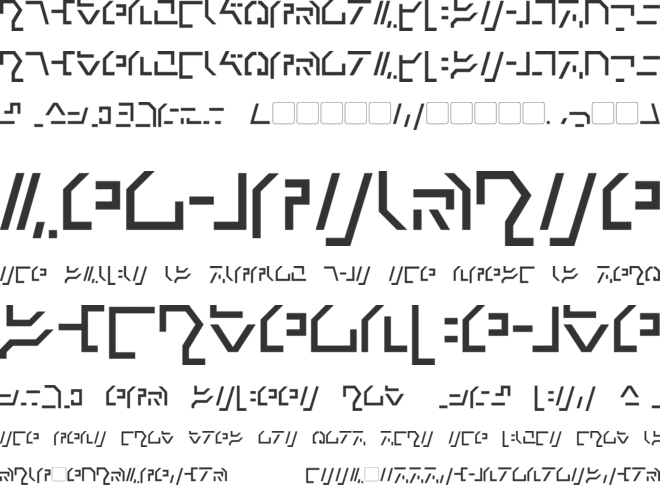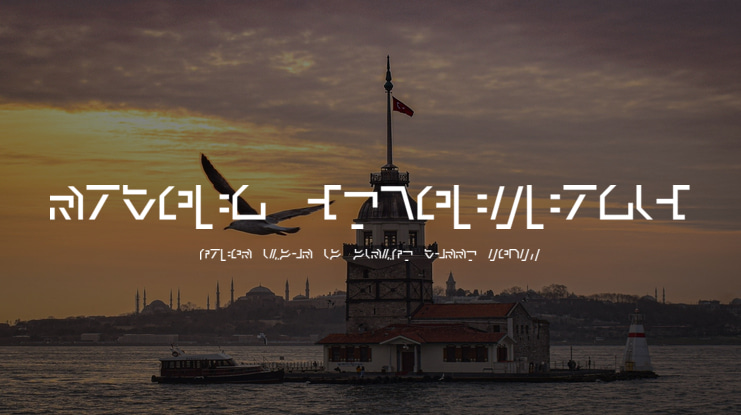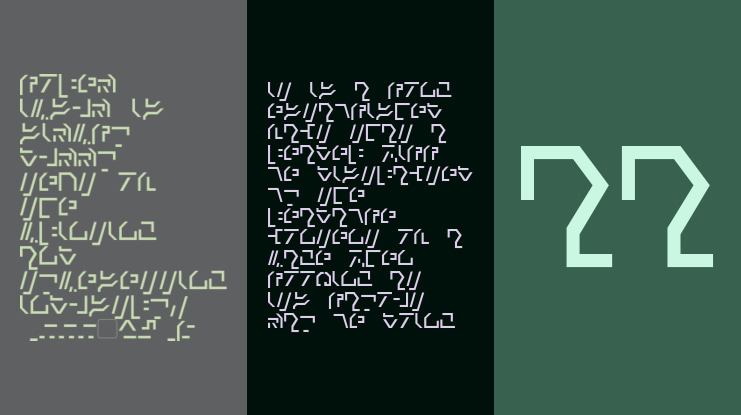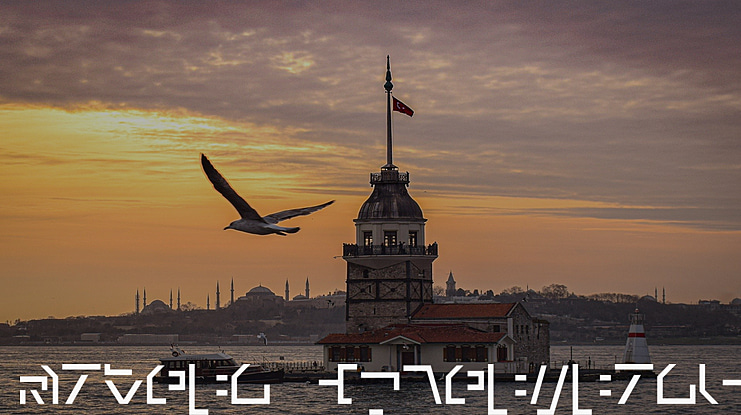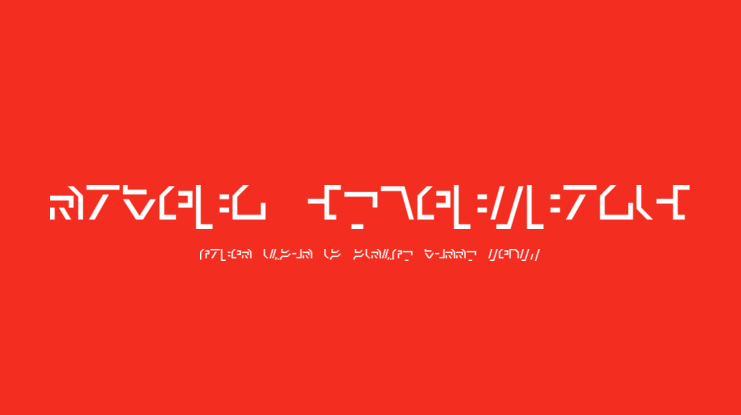
Modern Cybertronic Font Family
Modern Cybertronic is a ‘tech manual’ style, display-friendly version of the Ancient Autobot script found within some episodes of the classic Transformers television series from Hasbro and Sunbow, Inc. Includes all canon characters. Includes regular and italic weights.